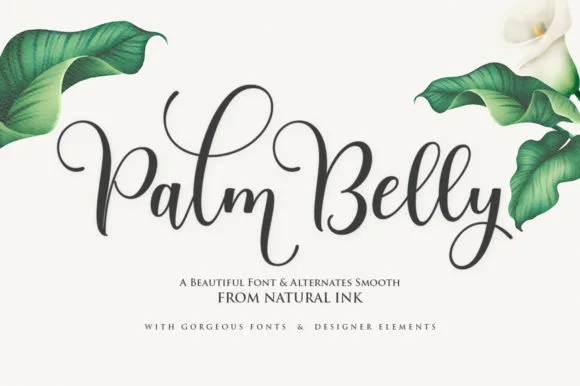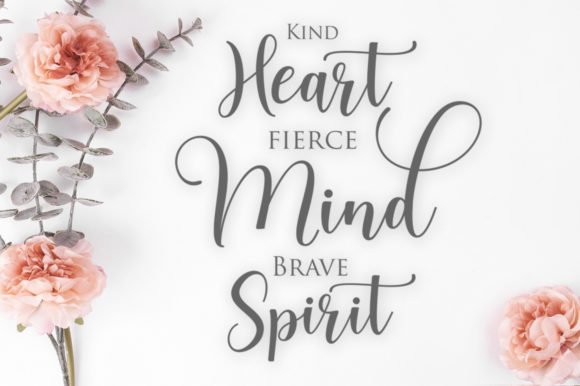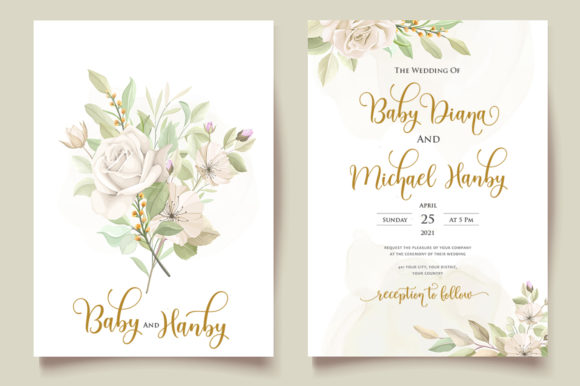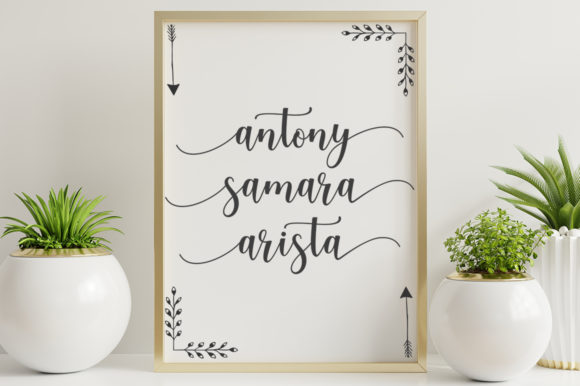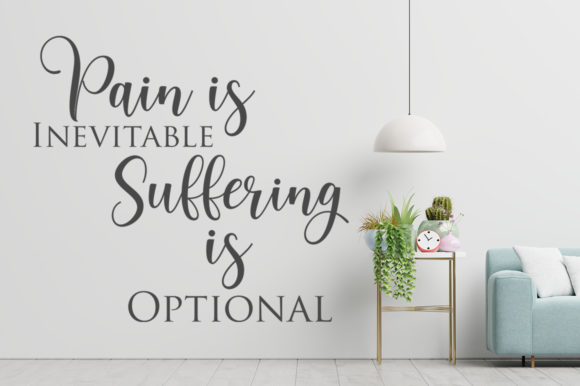
About Palm Belly Font
Palm Belly Script Font is modern calligraphy with beautiful and casual swashes. This font has an awesome selection of special characters and is PUA encoded, which means you can access all of the glyphs with ease!